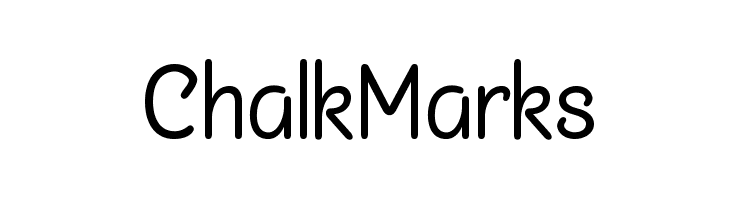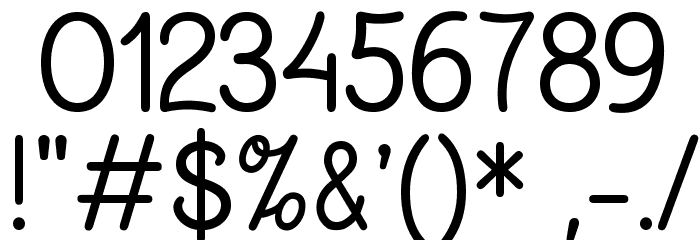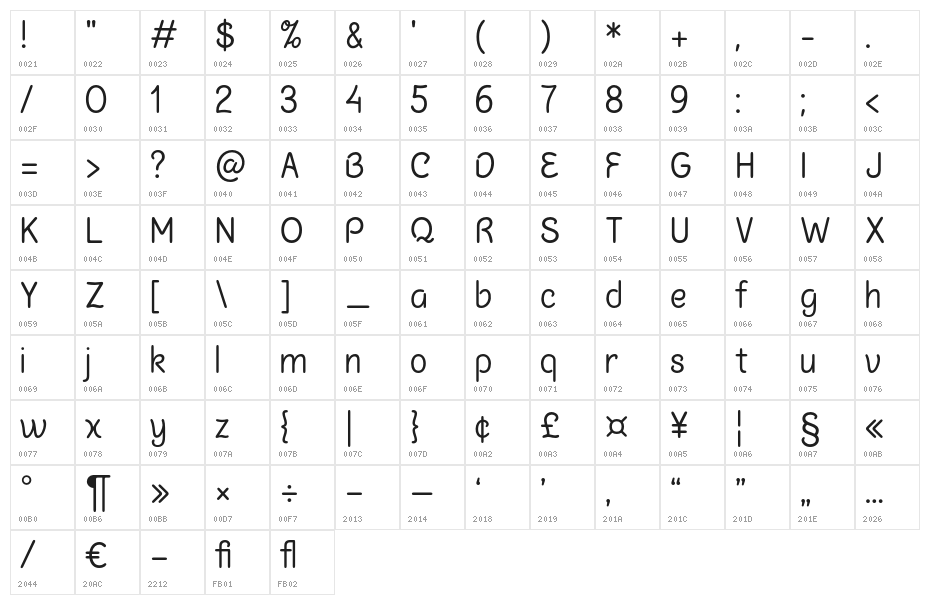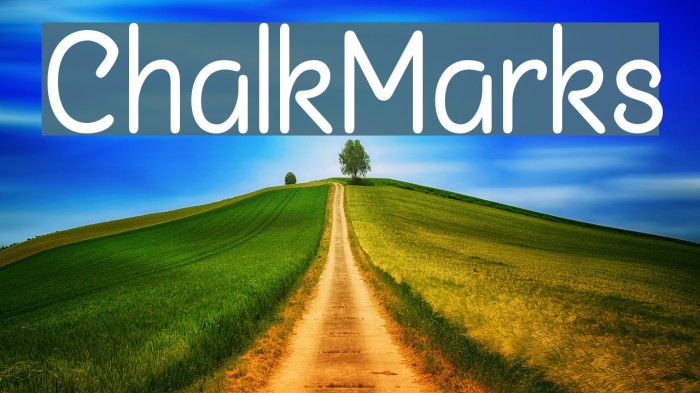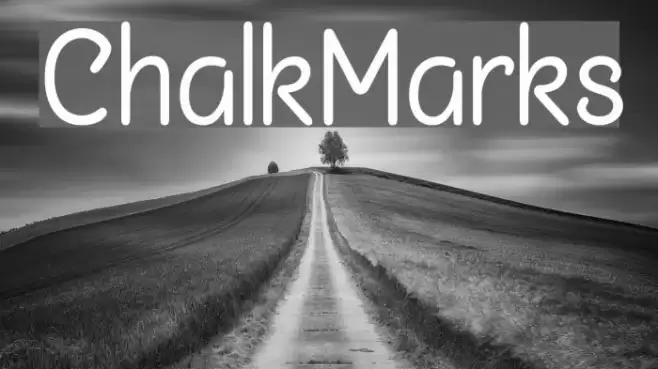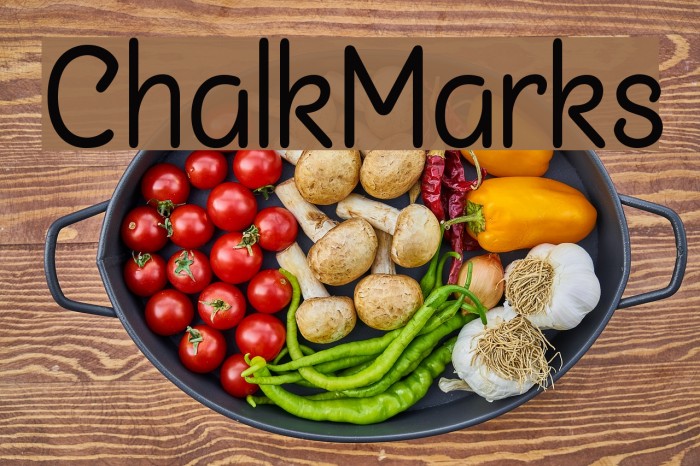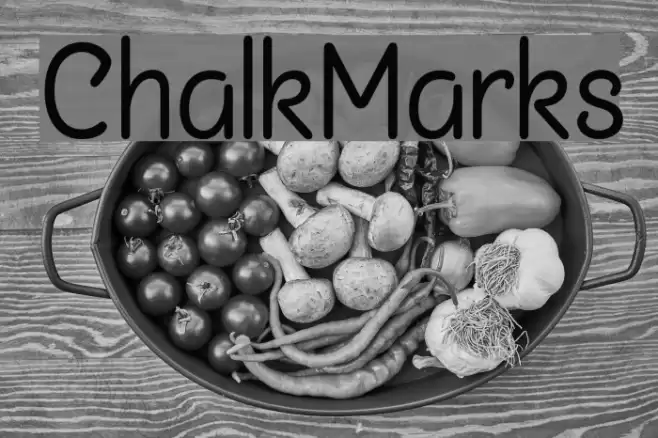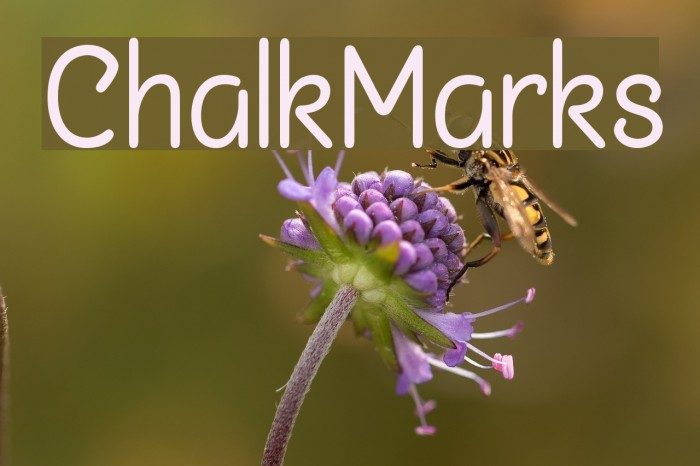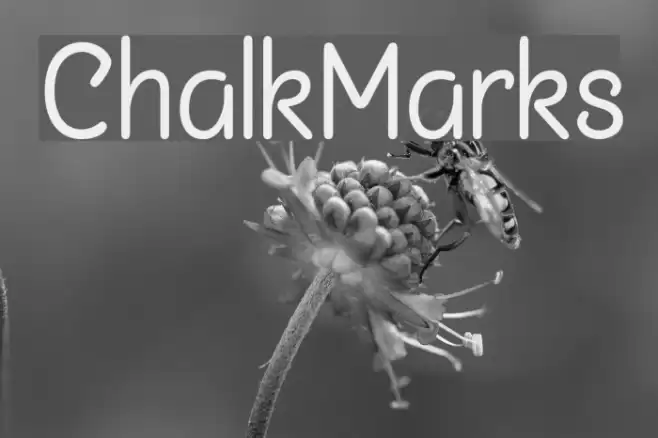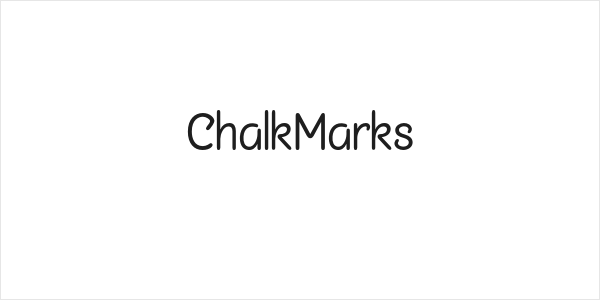
ChalkMarks Font
ChalkMarks Description
This font features a playful and rounded style, reminiscent of handwriting with a chalk-like texture. The characters are smooth and slightly elongated, giving them a casual and friendly appearance. The uppercase letters maintain a consistent height, while the lowercase letters have a uniform baseline with gentle curves. Numbers and special characters follow the same rounded aesthetic, ensuring a cohesive look across all elements. The font's design is approachable and versatile, suitable for a variety of creative projects.
| Proposed Projects | Ideal for educational materials, children's books, playful branding, and informal invitations. |